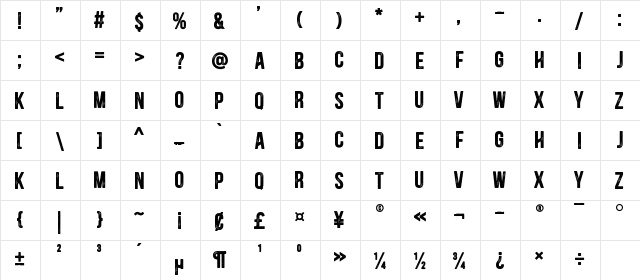
Blackside Rust Bold
| Designer | Vilogsign 2018 |
Design Context for Blackside Rust Typeface
Blackside Rust is a composed and adaptable typeface that performs quietly and consistently across a wide range of design contexts. Its bold stroke weight gives it real presence on the page.